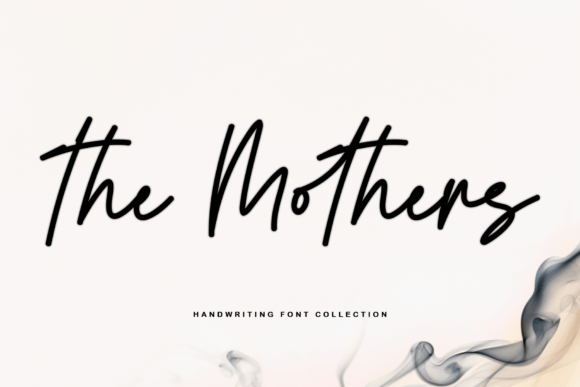
Looking for a way to elevate your design projects and make them stand out? Look no further than The Mothers Font, the perfect script font for adding a touch of luxury and elegance to any project.
Created by the experts at Black line, The Mothers is a stunning handwritten font that is sure to capture your heart. With characters that dance along the baseline, this font is anything but ordinary. It's the perfect choice for anyone who wants to add a unique and eye-catching touch to their designs.
Whether you're designing invitations, creating a logo, or working on a branding project, The Mothers Font is the perfect choice. Its sweet and beautiful script style will capture the attention of anyone who sees it, and it will add a touch of personality and charm to any project.
But The Mothers Font isn't just a pretty face - it's also incredibly versatile and easy to use. It works beautifully in both print and digital formats, and it pairs well with a wide range of other fonts and design elements.